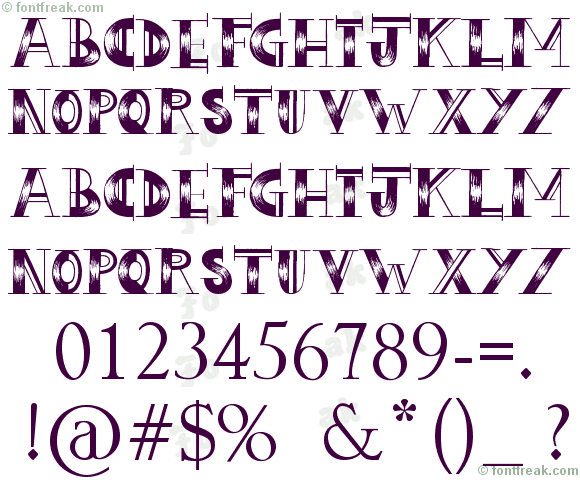
Love Hue
The Love Hue font, designed by Jonathan S. Harris, is a captivating display typeface that exudes a distinctive charm, perfect for projects that require a touch of romance and creativity. This font is categorized as a decorative typeface, showcasing an artistic flair that is both eye-catching and unique. The strokes feature a moderate weight with a striking contrast that highlights the intricate details. Its spacing is thoughtfully designed, allowing for optimal readability while maintaining an aesthetic appeal. Decorative elements, such as playful curves and stylized letters, contribute to its whimsical character.
Love Hue is ideal for a variety of specific use cases. It shines in wedding invitations, where its romantic essence adds a personal touch to the special occasion. Additionally, it can enhance movie posters, particularly for romantic or indie films, providing an artistic edge that captures attention. Restaurant menus can also benefit from its decorative qualities, creating an inviting atmosphere for diners. Moreover, content creators can use this font in social media graphics to convey a sense of warmth and creativity, making it perfect for lifestyle brands or personal blogs.
What sets the Love Hue font apart is its ability to blend beauty with functionality. Its unique visual characteristics make it memorable, while its versatility ensures it resonates across various creative fields. For those interested, the Love Hue font free download allows you to explore its enchanting qualities in your own designs.